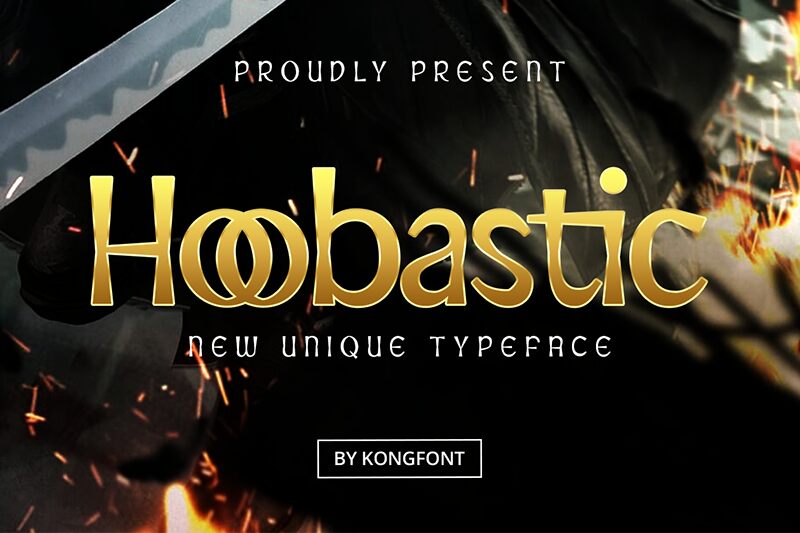
Hoobastic font by Kong Font offers a simple display type solution for your personal and professional design purposes. This free font is initially simple in design, though it offers numerous stylistic alternatives that make it flexible for creative typography projects. The fancy typeface features decorative edges and outlined-inset forms which give it a fun character.
Use Hoobastic for text edit projects and digital editing on poster, brochure, notebook cover, and more. Website landing pages, smartphone apps, and any digital platforms with user interface focus would benefit from adding some excerpts from this font.